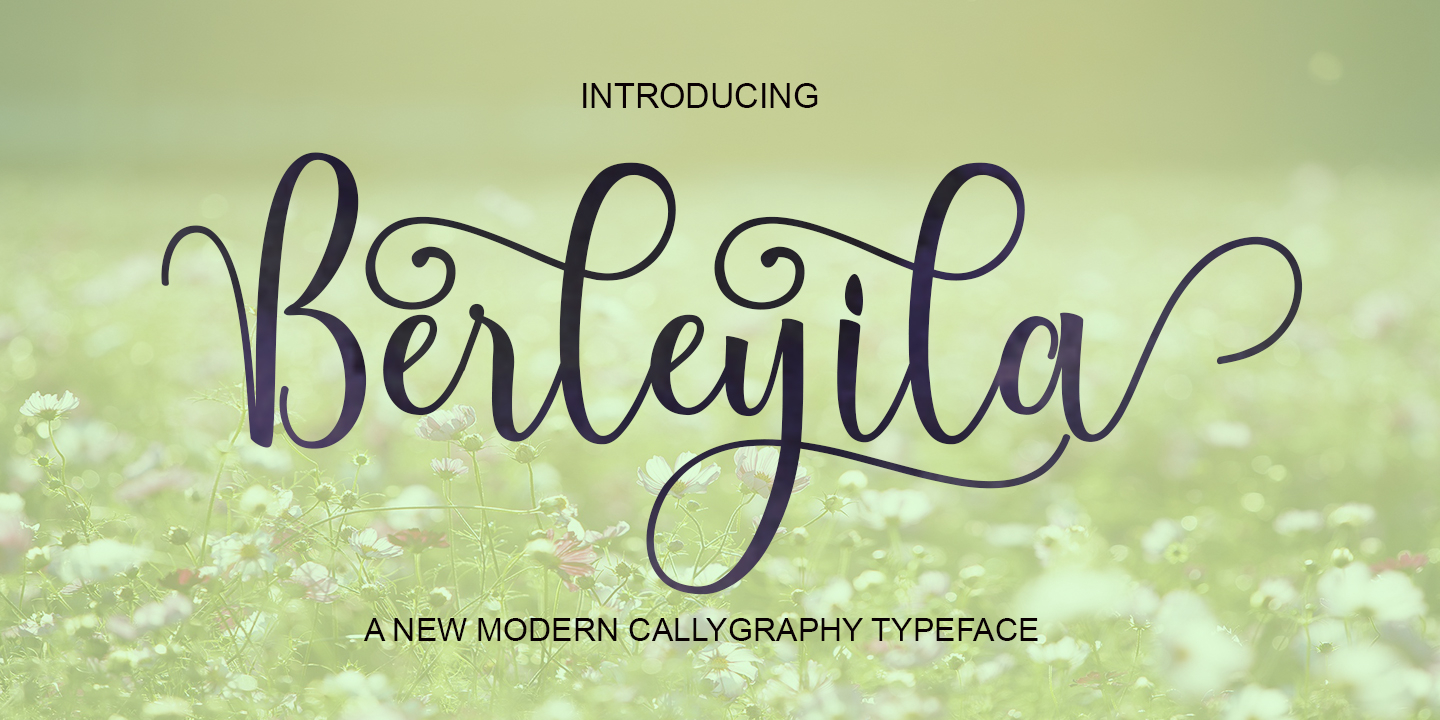
Berleyila is a script and modern calligraphy font published by pollem.Co.
Berleyila is a modern calligraphy font. Its design is based on handwriting. It is a modern form of calligraphy, yet the writing style is very natural.
The Features of this fonts are:
* Standart ligatures
* Stylistic Alternates
* Contextual Alternates
* Stylistic sets
Berleyila can be used for various purposes such as headings, logos, wedding invitations, t-shirt, letterhead, signage, lable, news, posters, badges etc.